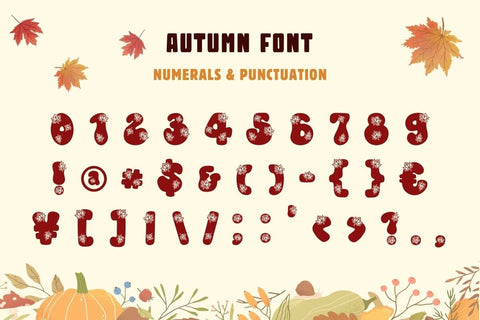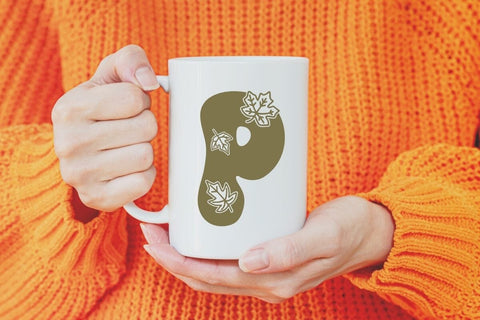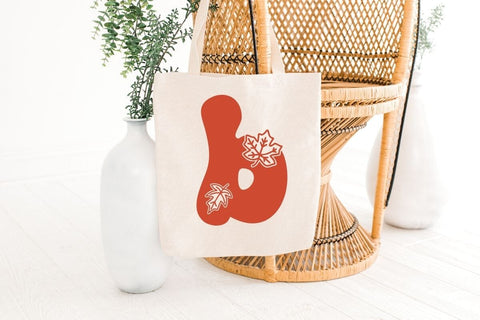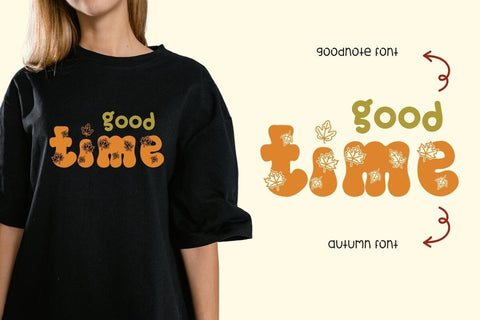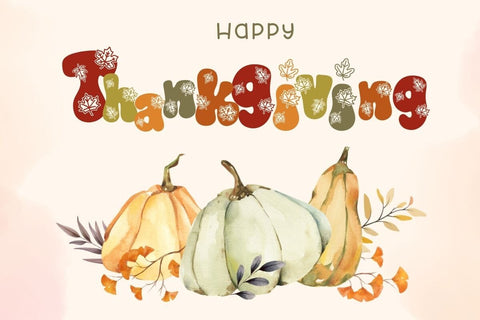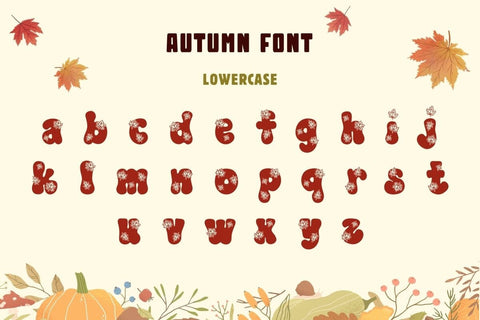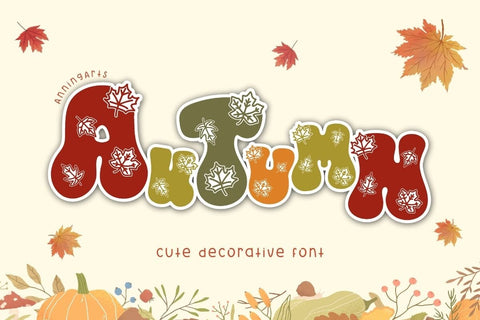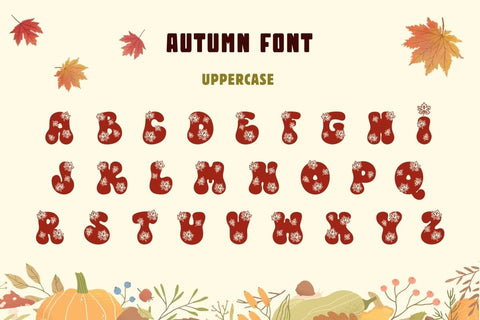
Autumn - Decorative Font
Autumn font is a delightful and vibrant typeface decorated with charming maple leaves in various colors. This font is perfect for projects that require beauty and a touch of nature, such as invitation cards, poster designs, or product packaging that needs a boost of cheerfulness and cuteness. Autumn font adds charm and makes your text stand out with its unique and captivating style.